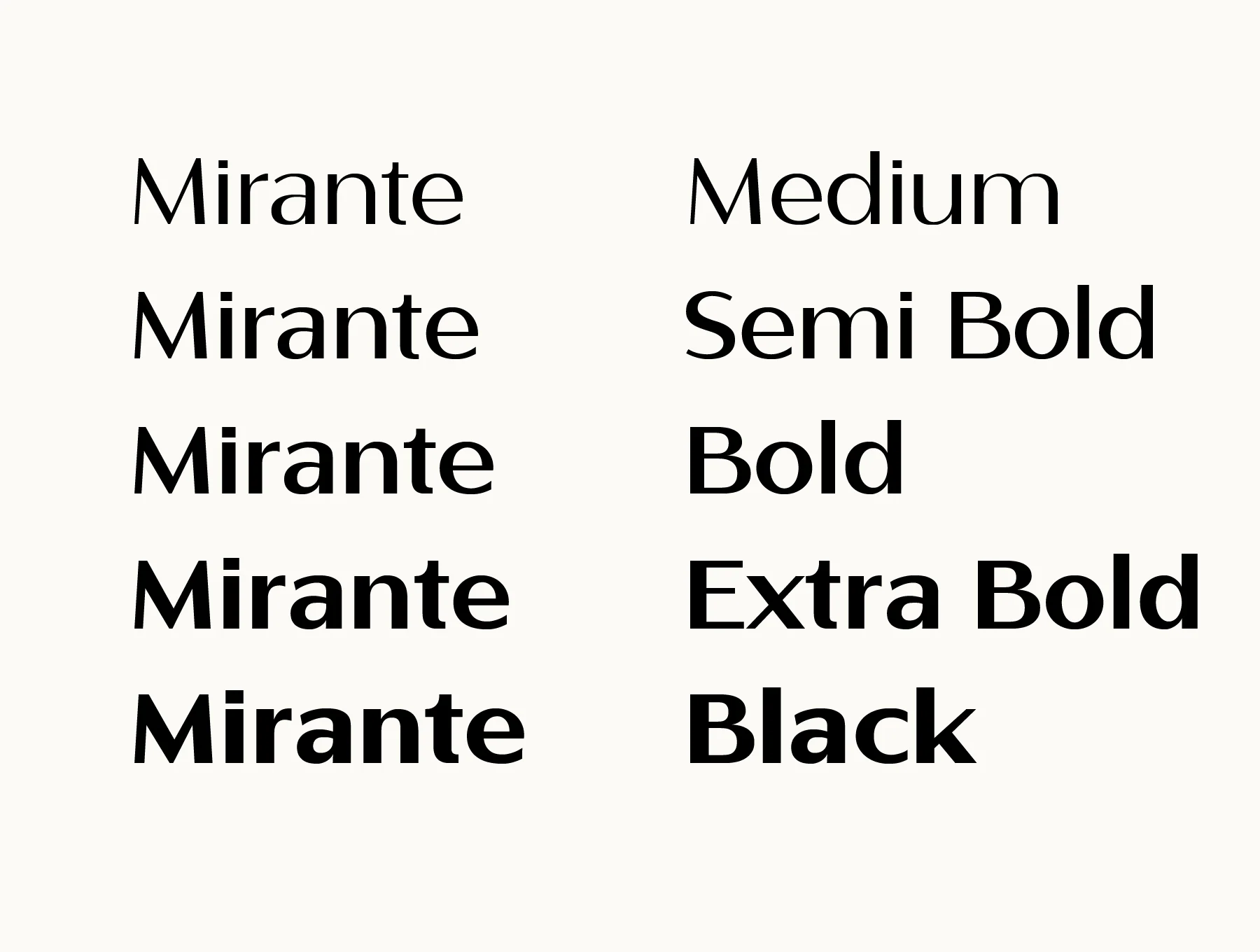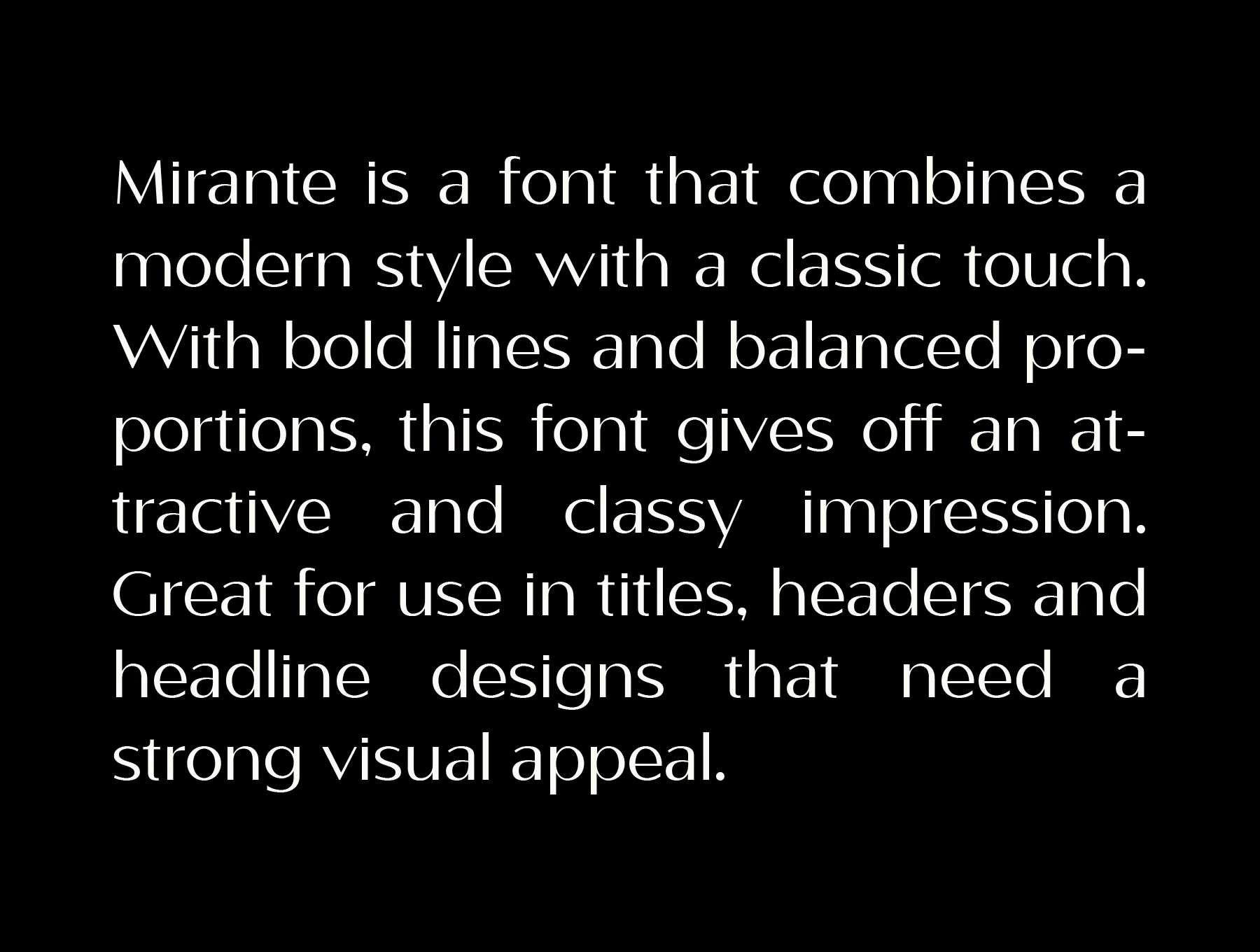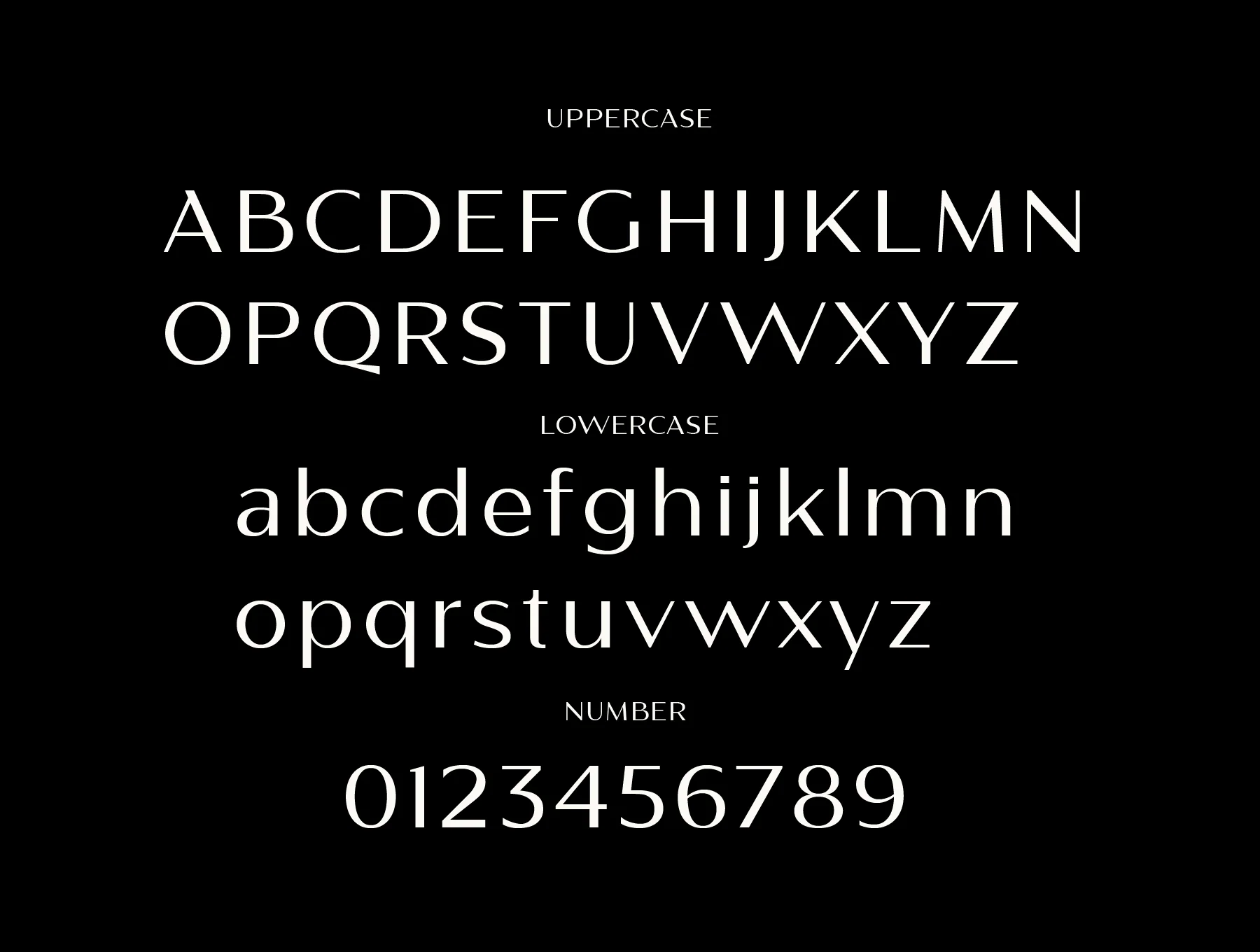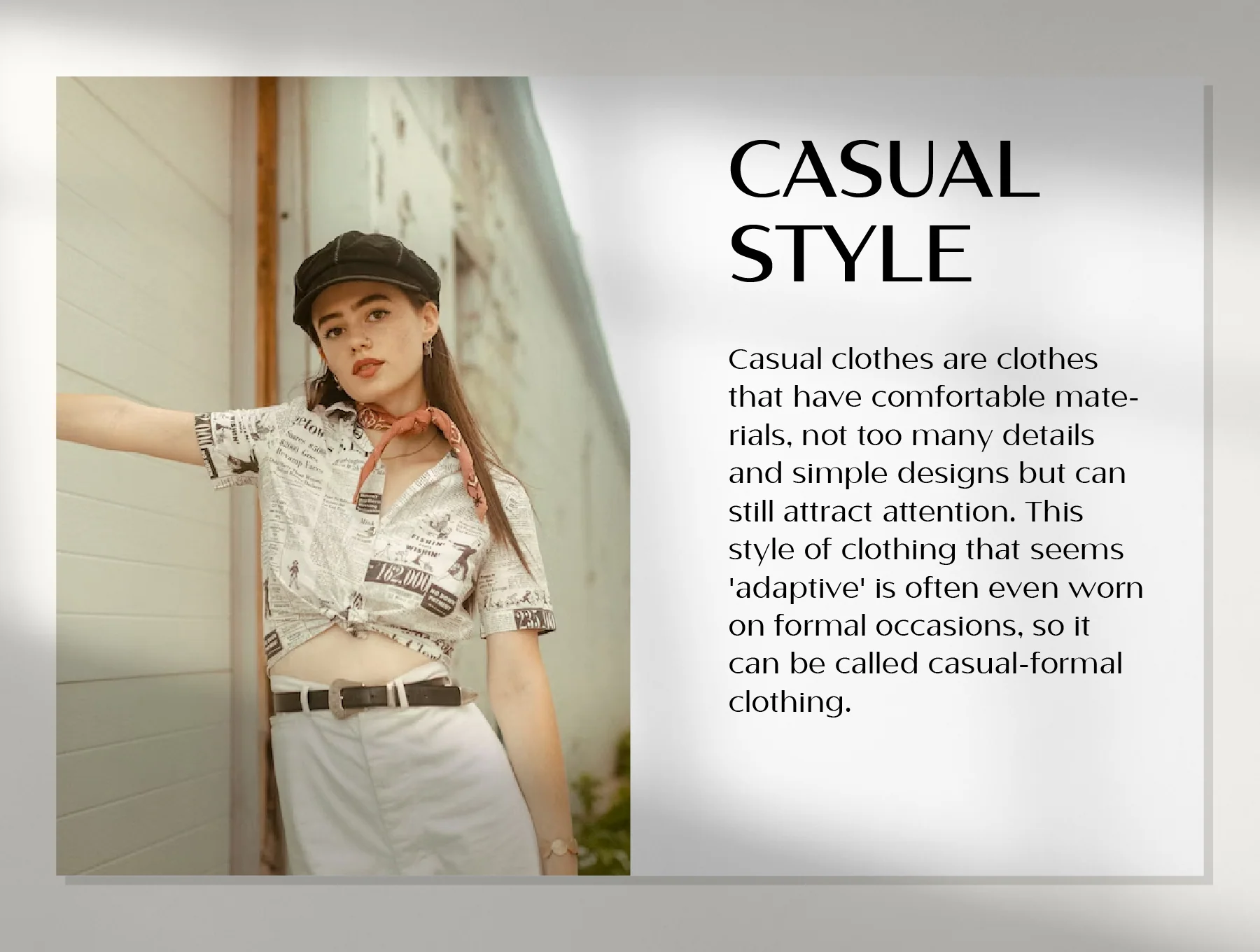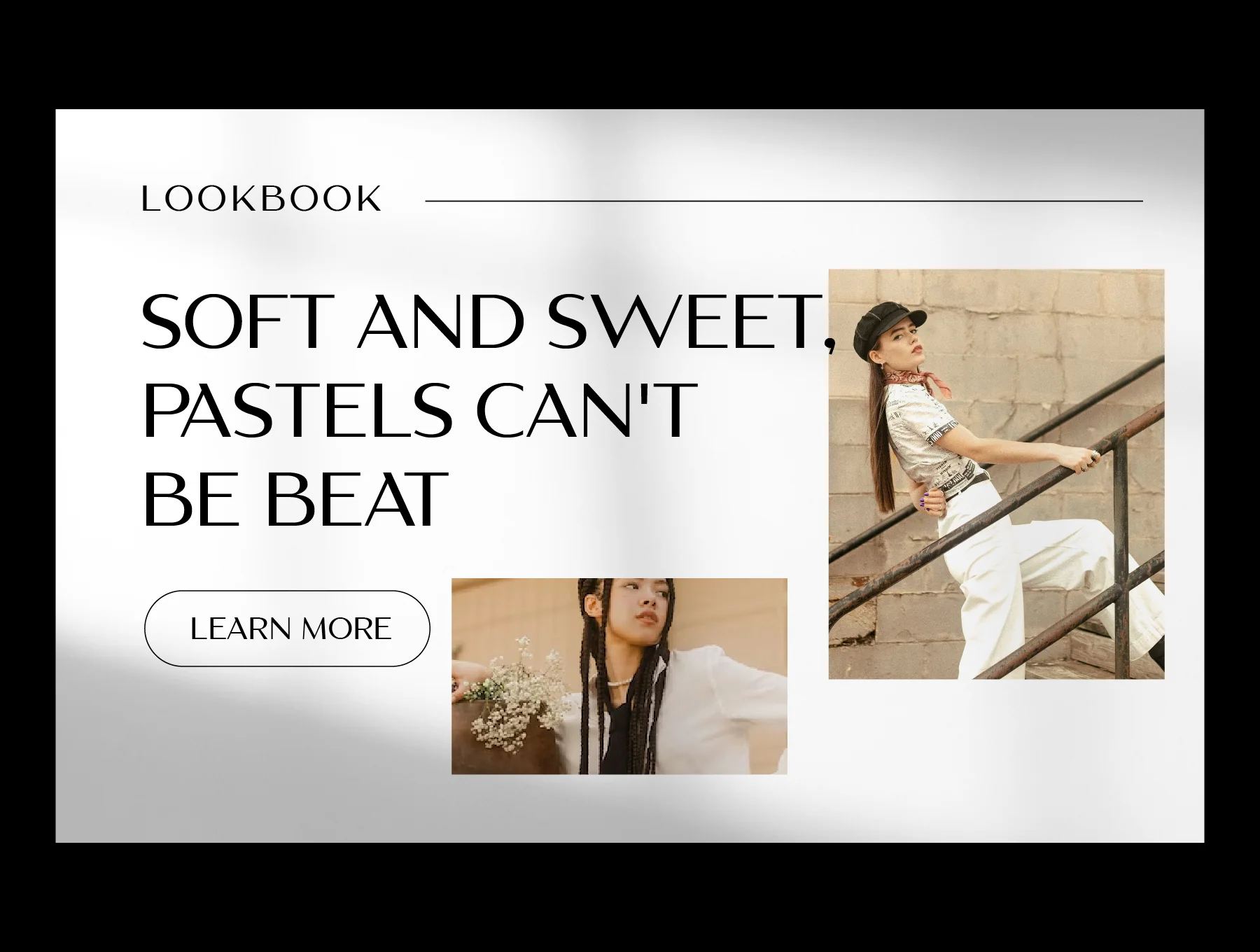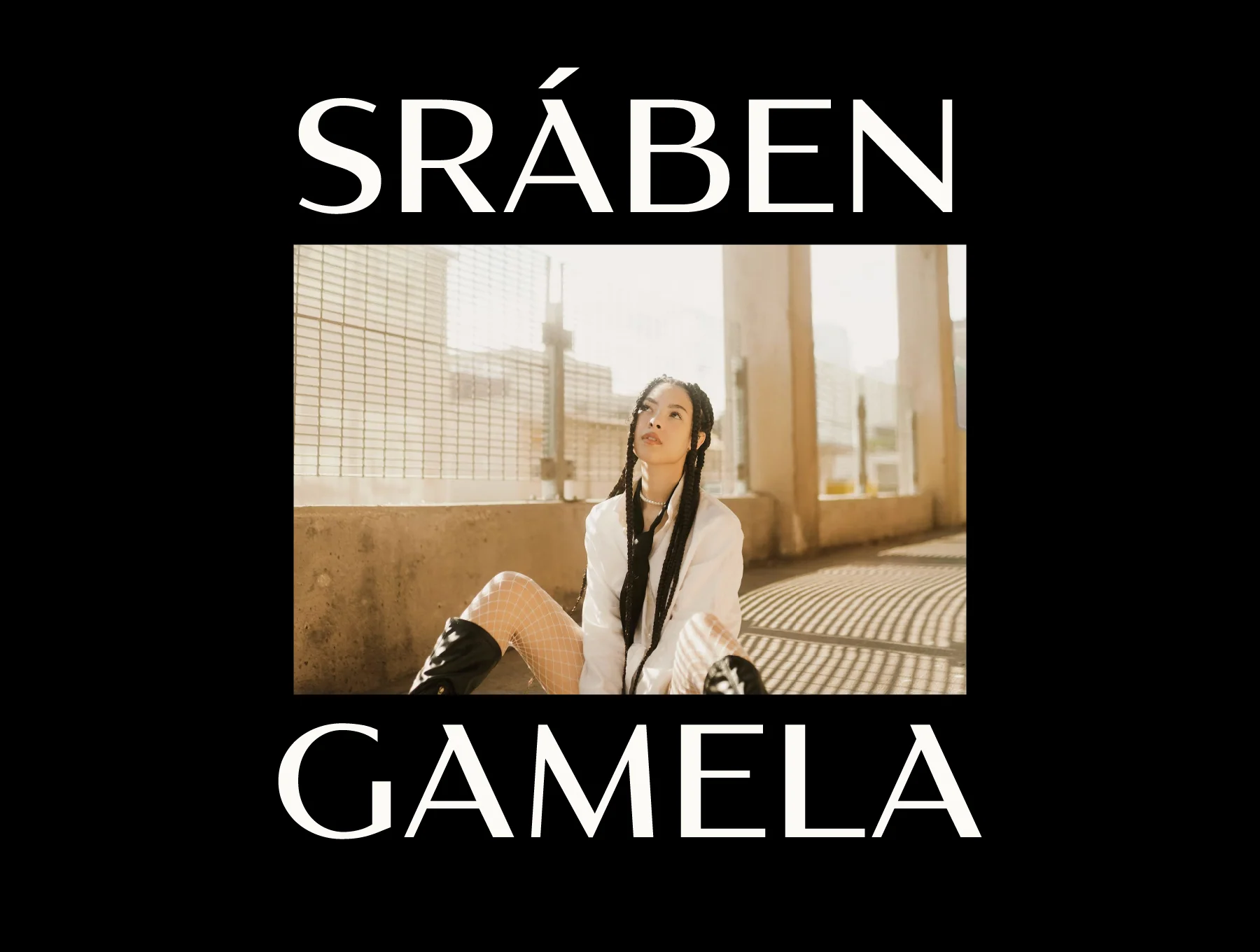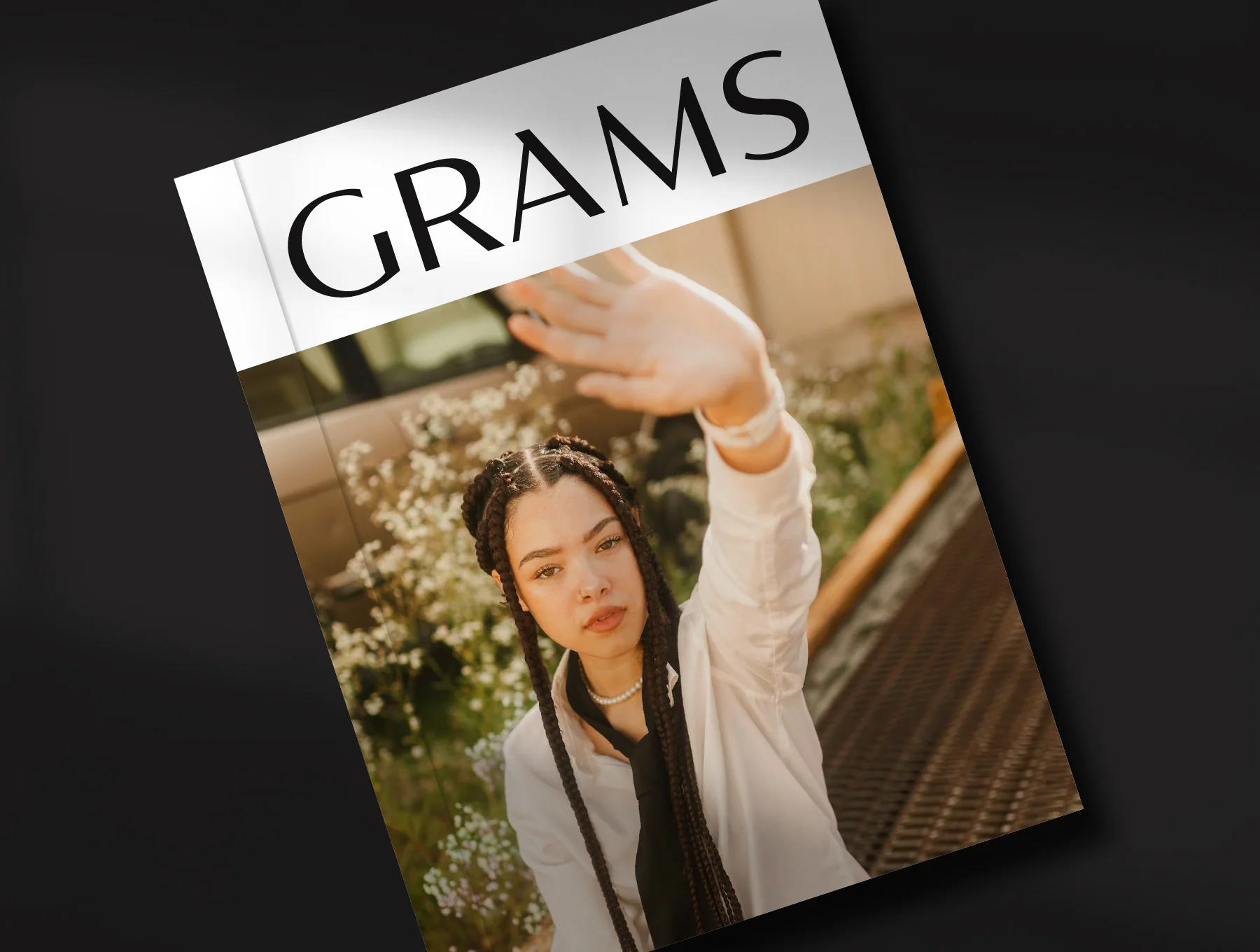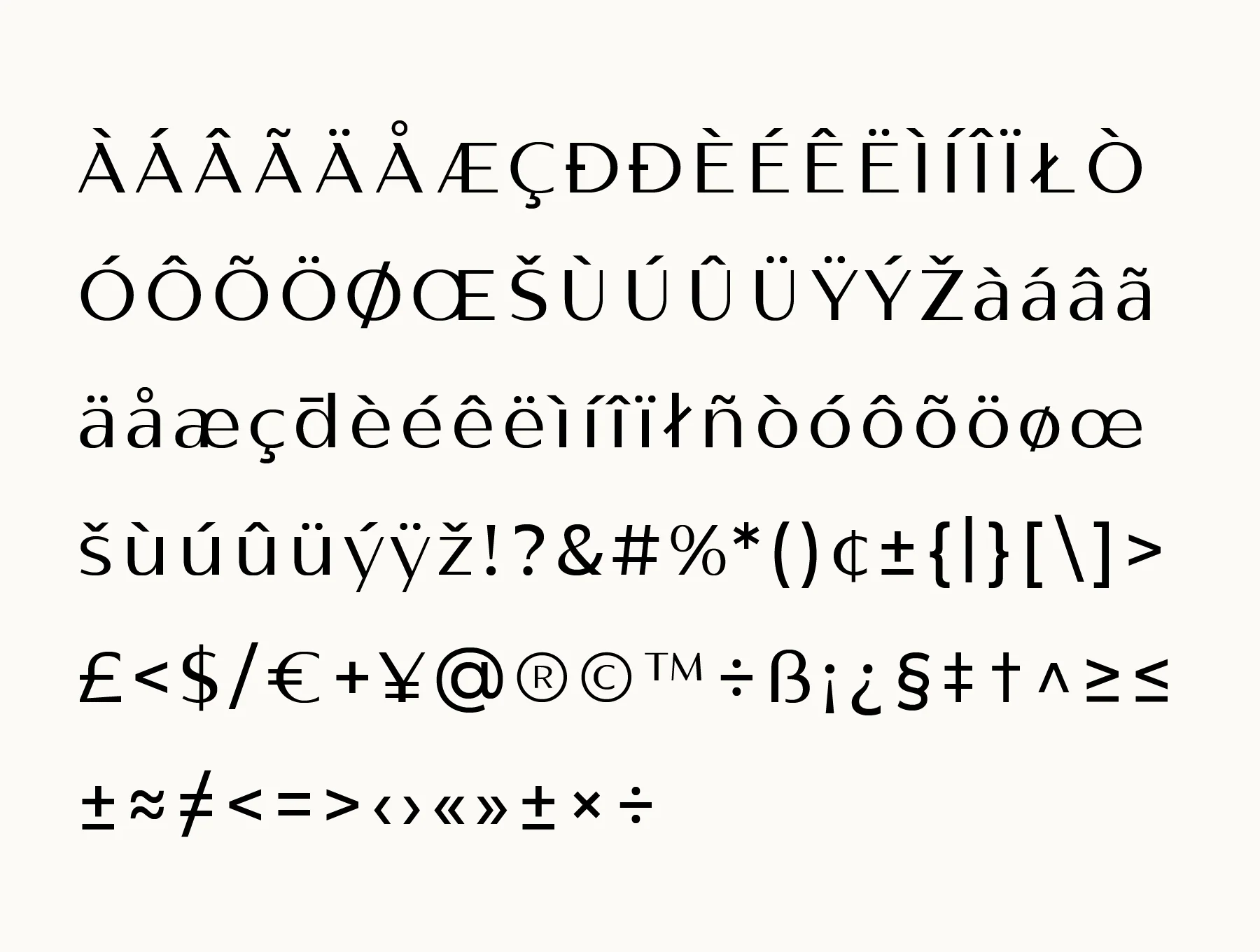
Mirante Elegant Font Family
This font family perfectly captures refined contemporary typography.
Five available weights
267 glyphs in total
Mirante Sans Serif delivers refined modern style with cohesive aesthetics across its variations. From bold Medium to strong Black weights, each option blends clean lines, simplicity, and sophistication for polished results in editorial layouts, branding, and corporate design. Includes OTF, TTF, and WOFF files.